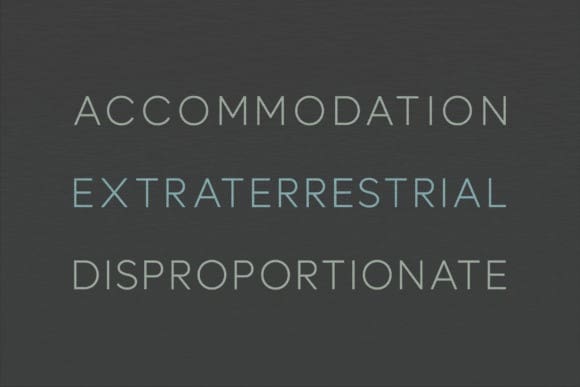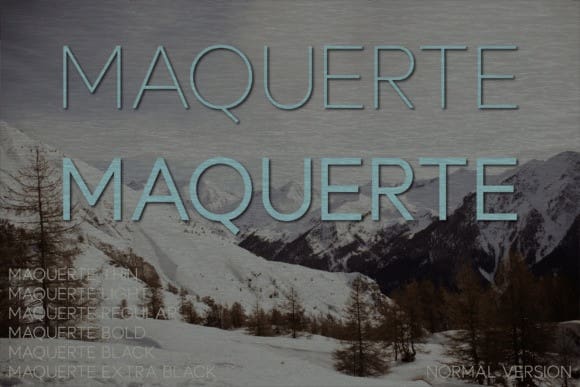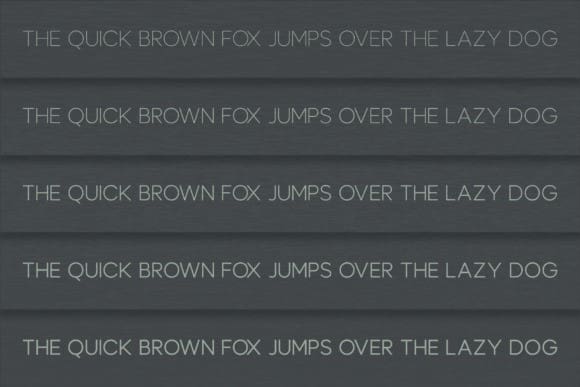
Maquerte Font Family
Maquerte Font Family, the quintessence of elegance encapsulated in a minimalist font family. Five unique weights lend this sans serif assortment a harmonious blend of modernity and opulence. Accurately designed with meticulous precision, Maquerte effortlessly elevates any project – from magazines and logos to movie posters. Experience an outstanding equilibrium of refinement and simplicity; the key to imparting your designs with a timeless allure. Explore and harness the transformative essence of the Maquerte font family today.